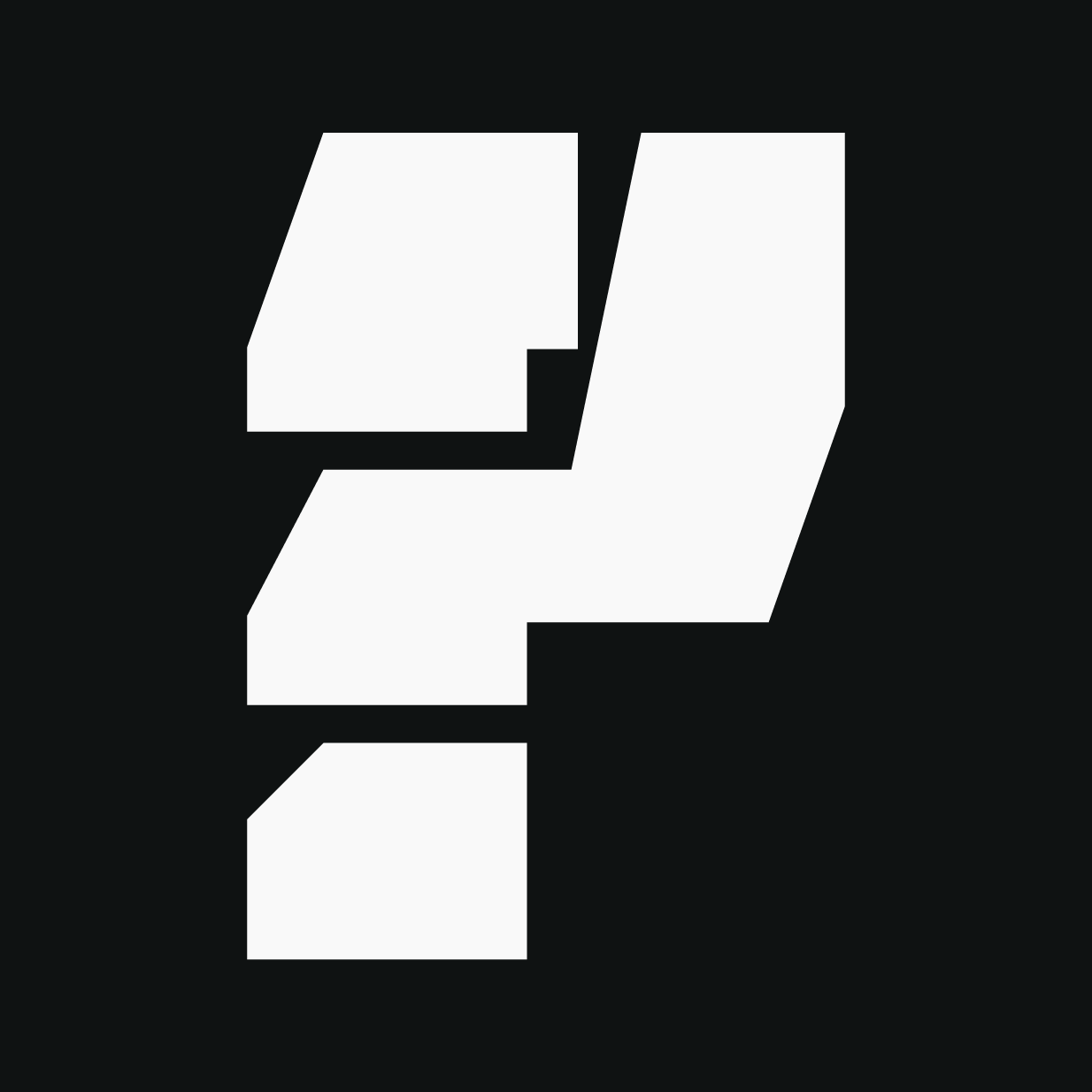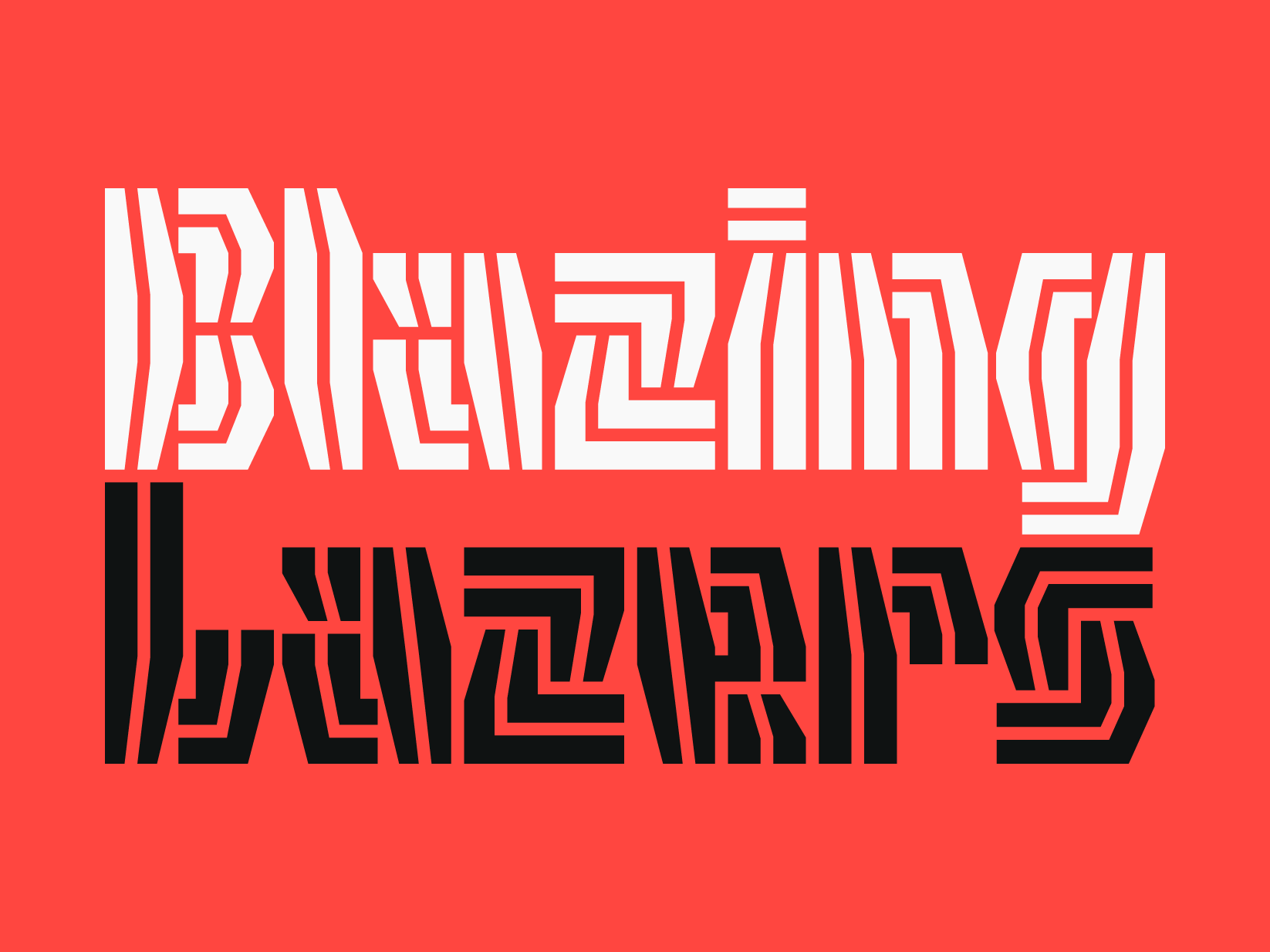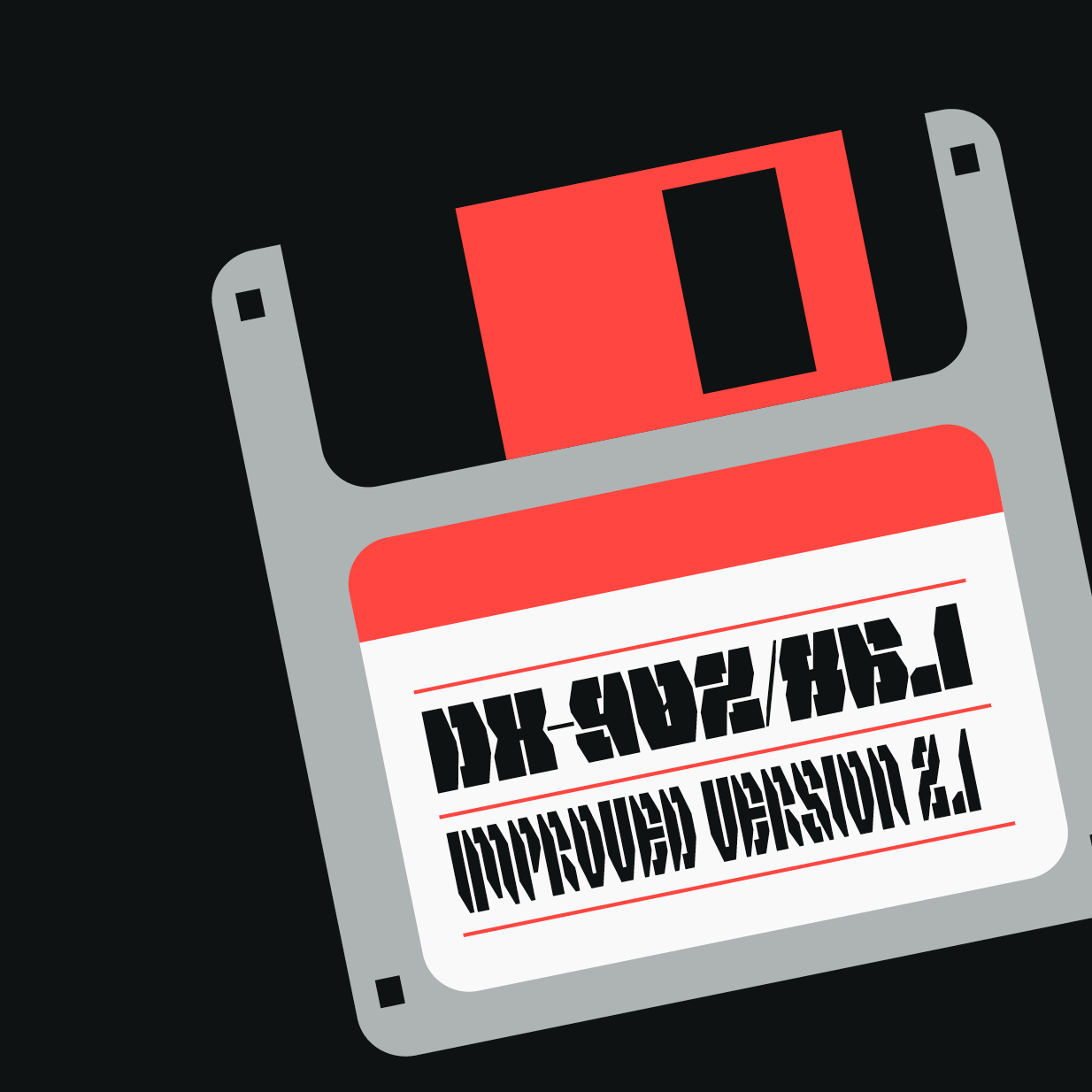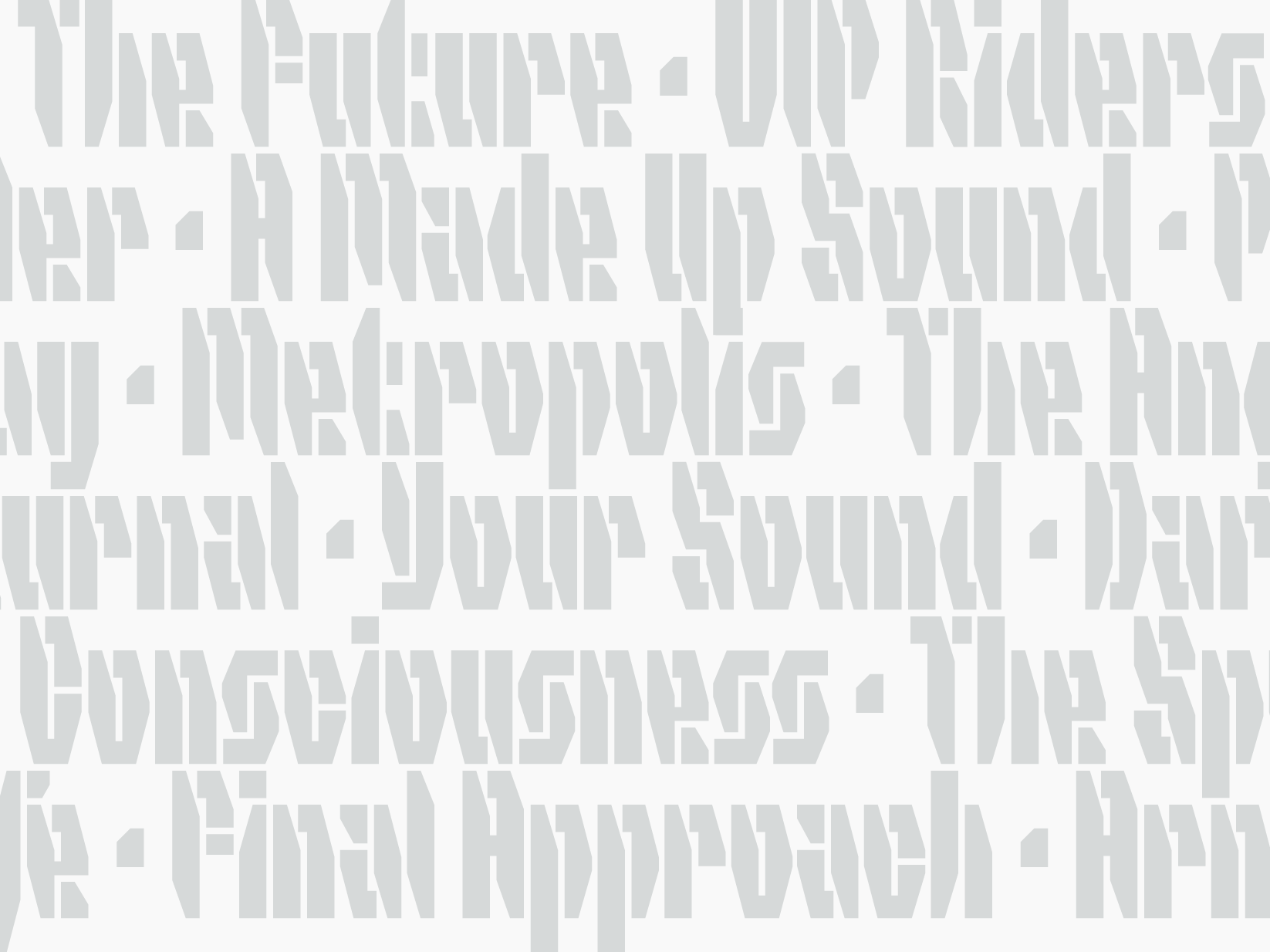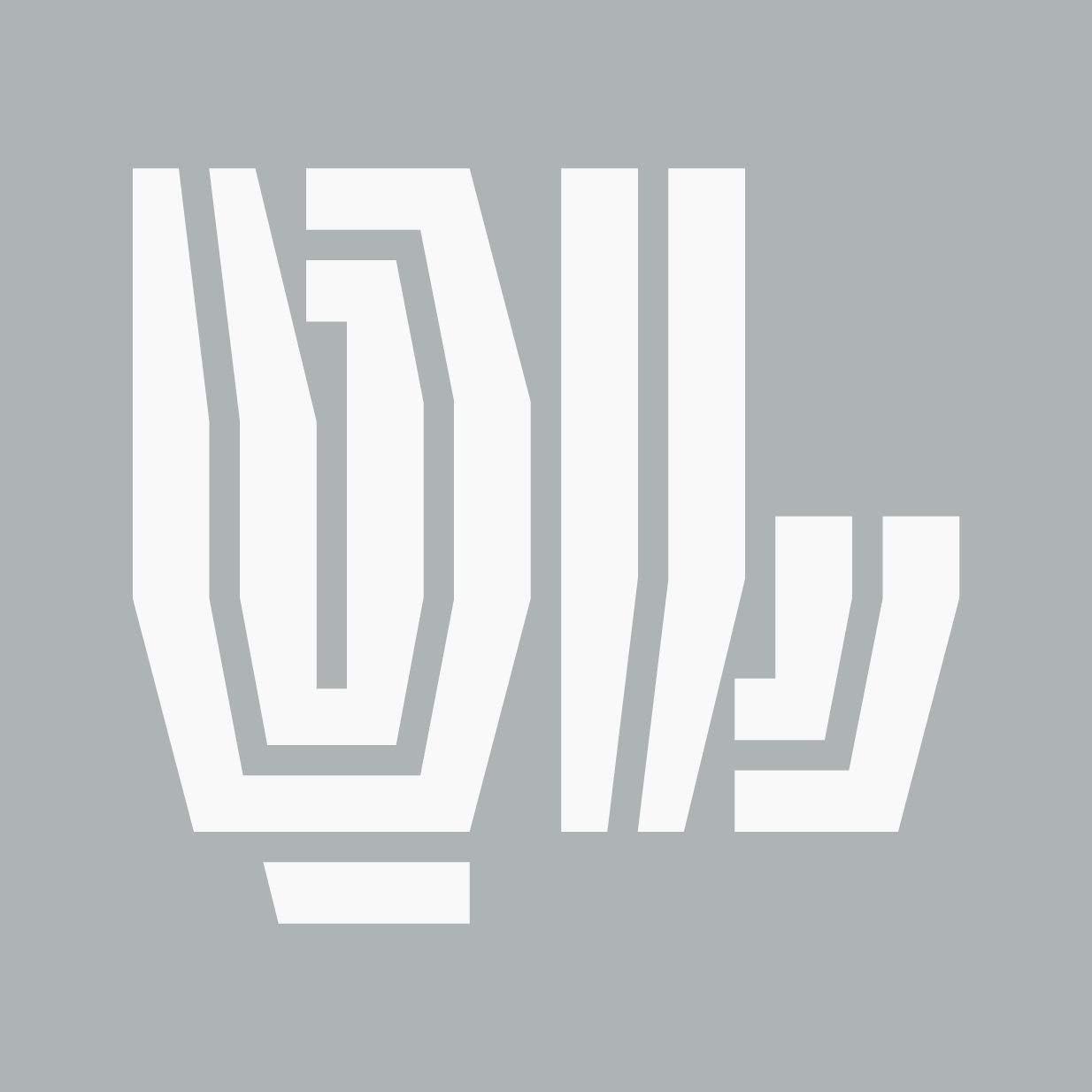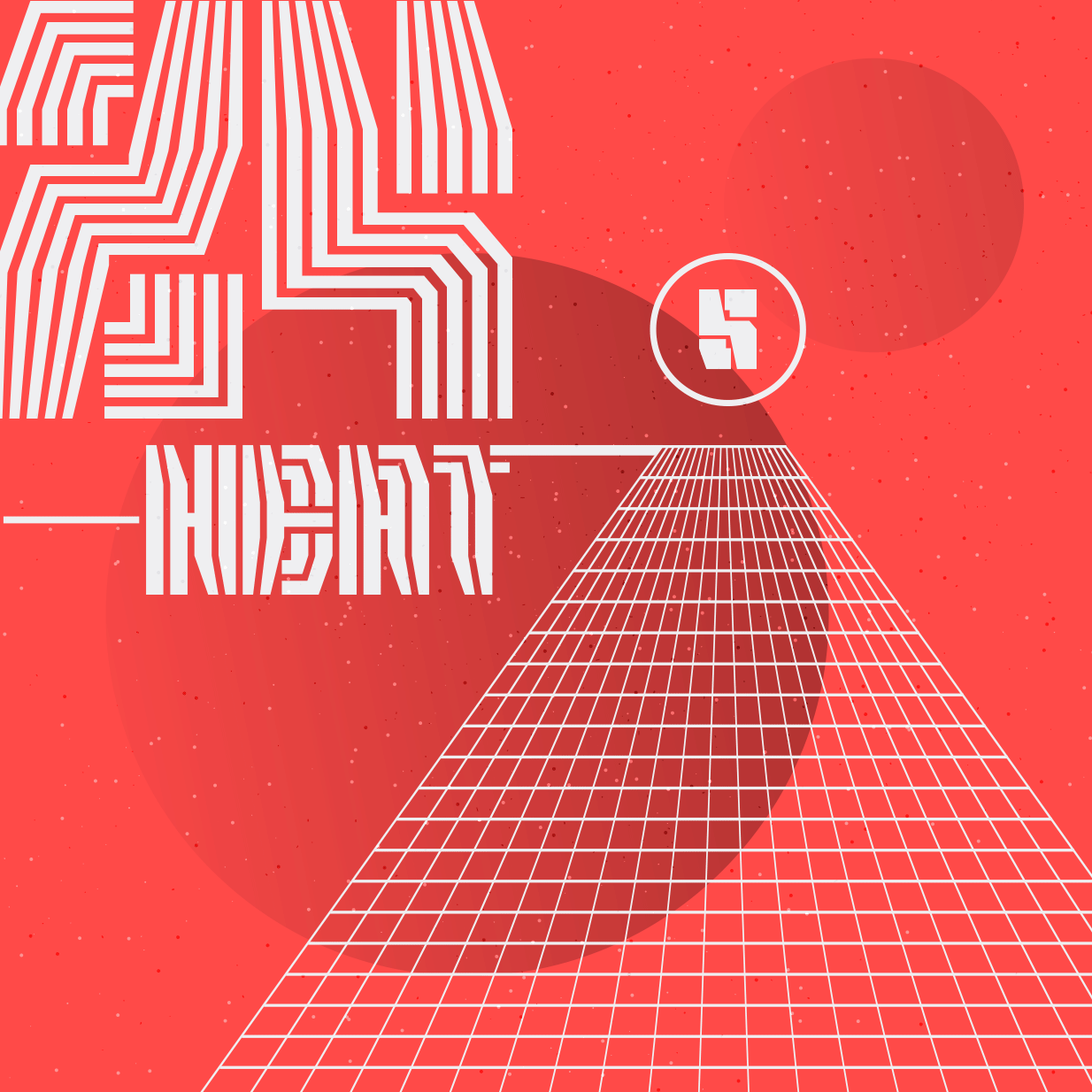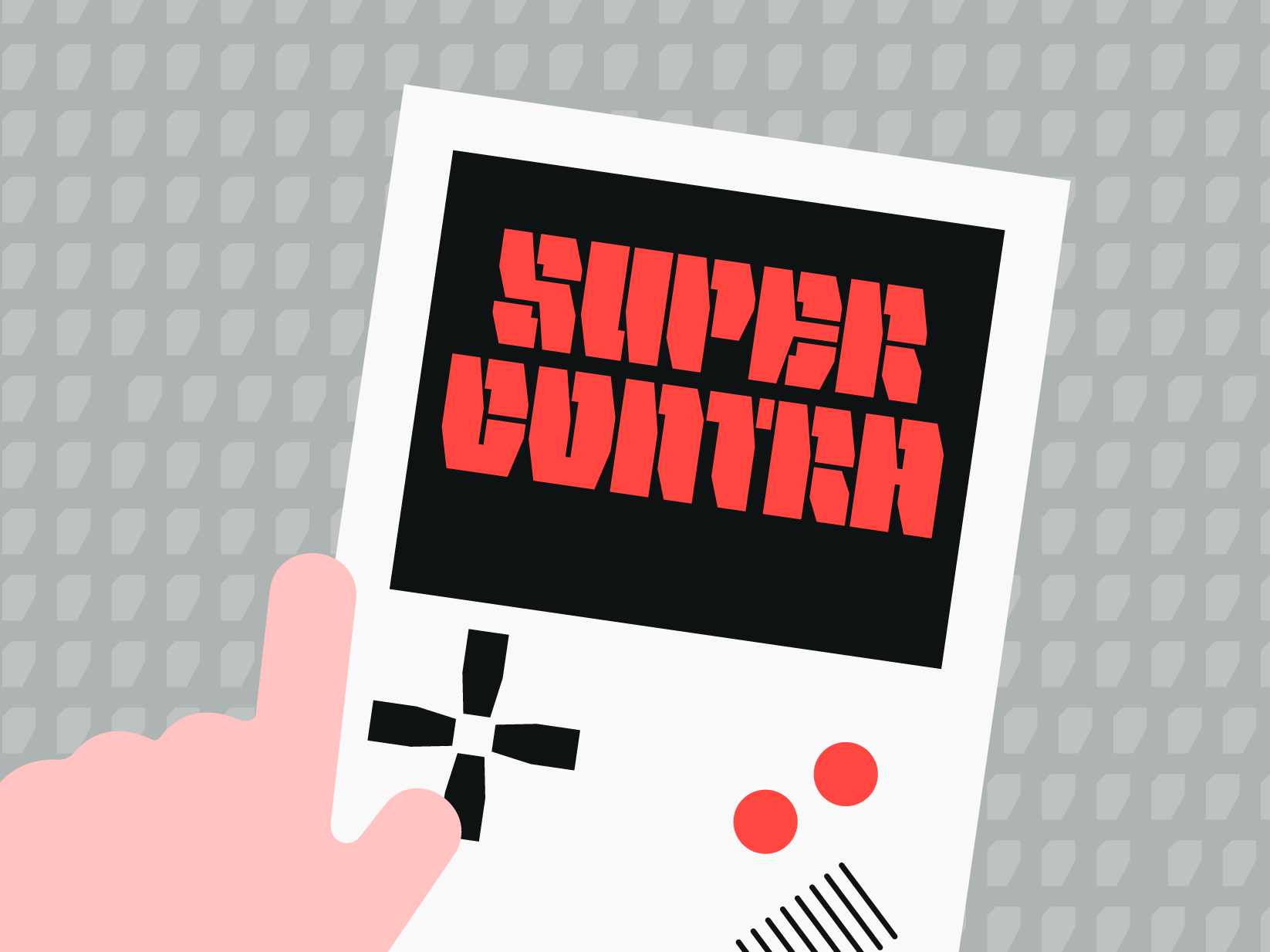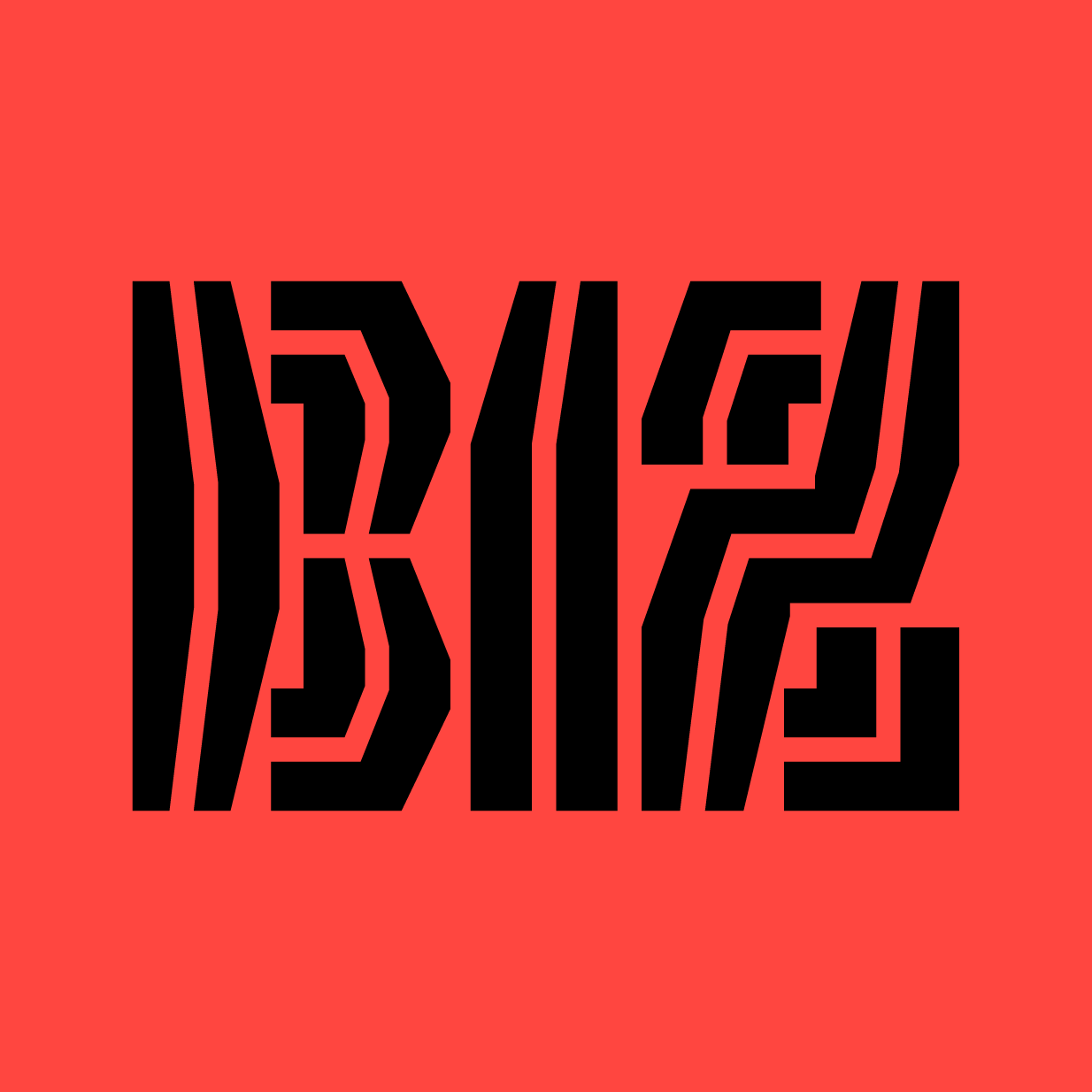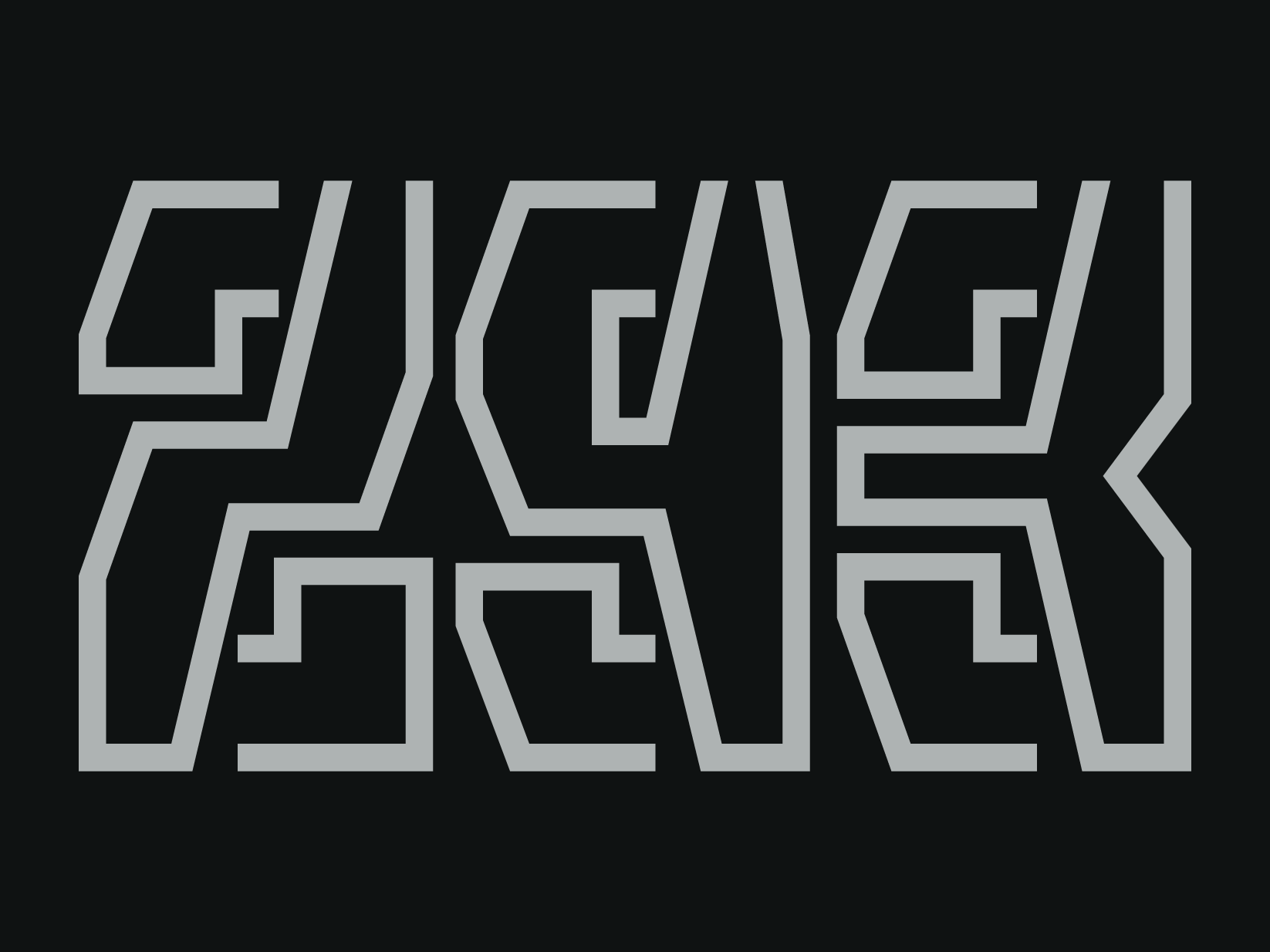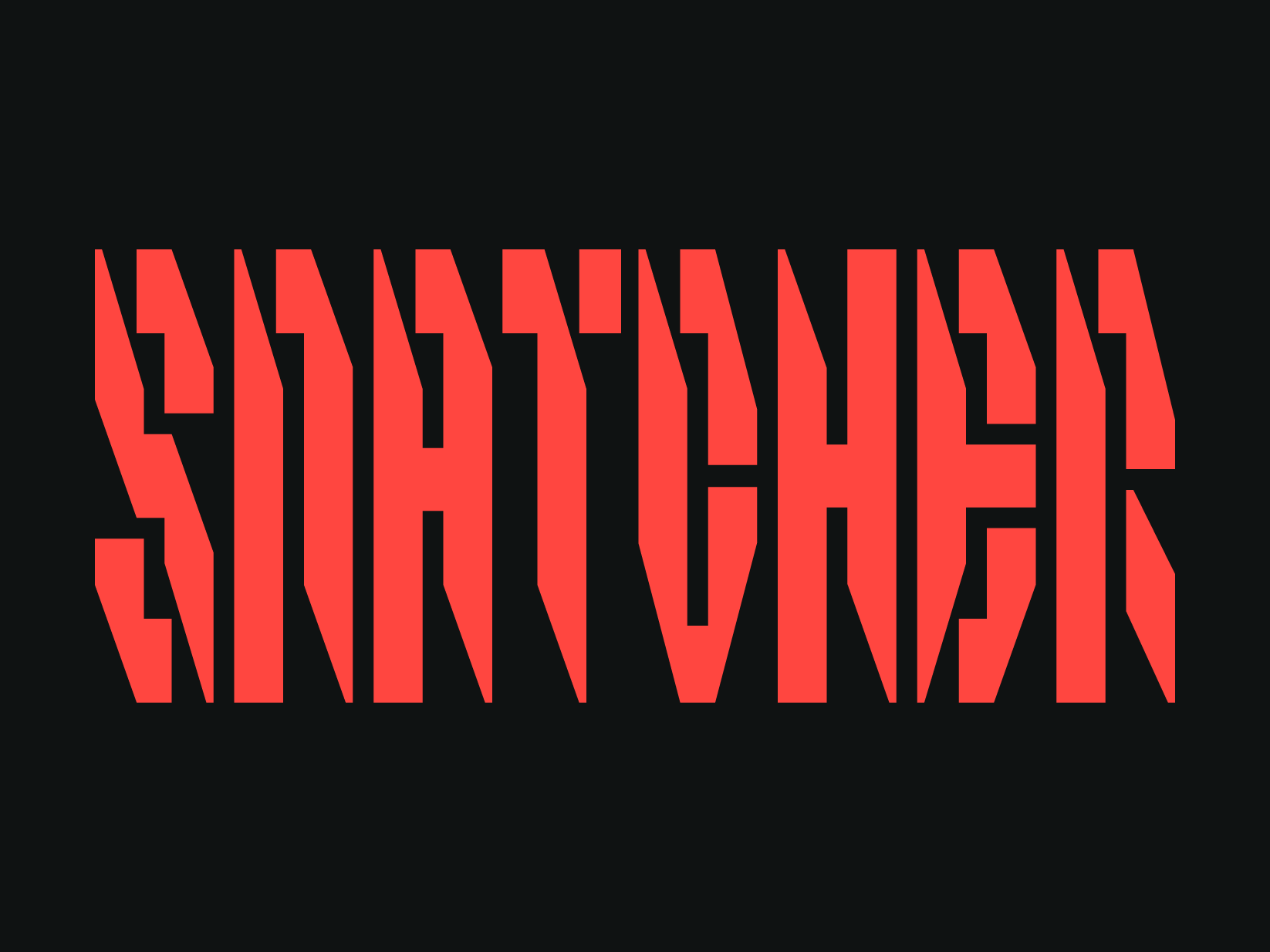
Rekall
This is not a typeface that is legible in big and small. Rekall by Shiva Nallaperumal is the forceful display family that is putting decipherability to a test.
The design started as a logotype and typeface for a high-fashion streetwear brand. Fitting the spirit of the clothing, Nallaperumal wanted to create letters that are both aggressive and street-smart. He decided on futuristic stencil elements with sharp features that form the underlying logic of the design rather than the usual method of designing letterforms first and then “cutting” into them.
Taking all liberties that come with designing a reckless display typeface, Nallaperumal increased the aggressiveness in the spiky, compressed Light weight, making it even harder to read, while the Heavy stretches out into chunky blocks. The amount of white space within and between the letters stays the same across all five weights/widths. This and the consistent x-height makes it easy to use a combination of several styles in the same word or line enabling very animated settings. (Predictably, Rekall will be available as a variable font in the future.) Five decorated styles, from the outline stencil Factory to the radient, striped Techno or Infra, round out the striking palette and cry out for being used on posters, record sleeves, t-shirts and boards.
Shiva Nallaperumal